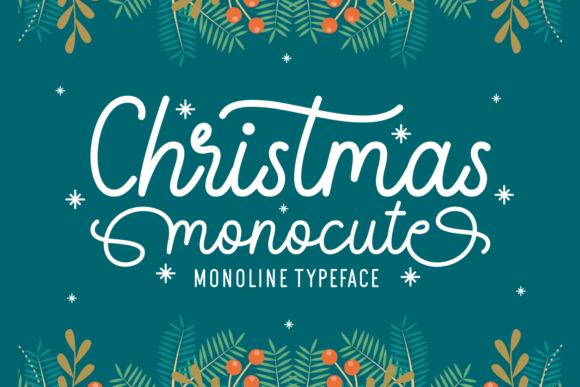
Introducing Christmas Monocute Font: A Timeless Vintage Script for Your Design Projects
Are you looking for a font that exudes elegance, sophistication, and a touch of nostalgia? Look no further than the Christmas Monocute Font, a beautiful, well-balanced, and vintage-styled script font that is perfect for fashion branding, editorial designs, and a wide range of creative projects. With its smooth curves and classic charm, this font is sure to add a touch of magic to your designs.
What is Christmas Monocute Font?
Christmas Monocute Font is a carefully crafted script font that embodies the essence of vintage typography. Its unique blend of classic and modern elements makes it an ideal choice for designers seeking to create stunning visual content. The font’s smooth curves, flowing lines, and perfectly balanced letterforms make it a joy to use for a variety of design applications.
Key Features of Christmas Monocute Font
- Vintage Style: Christmas Monocute Font boasts a distinctive vintage flair, reminiscent of classic script fonts from the early 20th century.
- Smooth Curves: The font’s smooth curves and flowing lines create a sense of elegance and sophistication, making it perfect for high-end fashion branding and editorial designs.
- Well-Balanced: Each letterform has been carefully crafted to ensure perfect balance and harmony, resulting in a font that is a pleasure to read and use.
- Versatile: Christmas Monocute Font is suitable for a wide range of design applications, from fashion branding and editorial designs to packaging, advertising, and more.
Why Choose Christmas Monocute Font?
With so many fonts available, why choose Christmas Monocute Font for your design projects? Here are just a few compelling reasons:
- Unique Style: Christmas Monocute Font offers a distinctive, one-of-a-kind style that will set your designs apart from the crowd.
- Ease of Use: The font’s smooth curves and well-balanced letterforms make it easy to use and read, even at small sizes.
- High-Quality Design: Each letterform has been meticulously crafted to ensure a high level of quality and attention to detail.
- Timeless Appeal: The font’s vintage style ensures that it will remain timeless and relevant for years to come, avoiding the fleeting nature of trendy fonts.
Perfect for Fashion Branding and Editorial Designs
Christmas Monocute Font is particularly well-suited for fashion branding and editorial designs, where style and sophistication are paramount. The font’s elegant curves and classic charm make it an ideal choice for:
- Fashion Logos: Create a stunning logo for your fashion brand that exudes elegance and sophistication.
- Editorial Headlines: Use Christmas Monocute Font to create eye-catching headlines for your editorial designs, such as magazine covers, articles, and advertisements.
- Packaging Design: Add a touch of luxury to your packaging designs with this beautiful script font.
Tips for Using Christmas Monocute Font
To get the most out of Christmas Monocute Font, here are a few tips to keep in mind:
- Use it Sparingly: While Christmas Monocute Font is beautiful, it’s best used sparingly to avoid overwhelming the reader.
- Pair it with Other Fonts: Experiment with pairing Christmas Monocute Font with other fonts to create a unique and visually appealing combination.
- Adjust the Size and Color: Play with the size and color of the font to create visual interest and hierarchy in your designs.